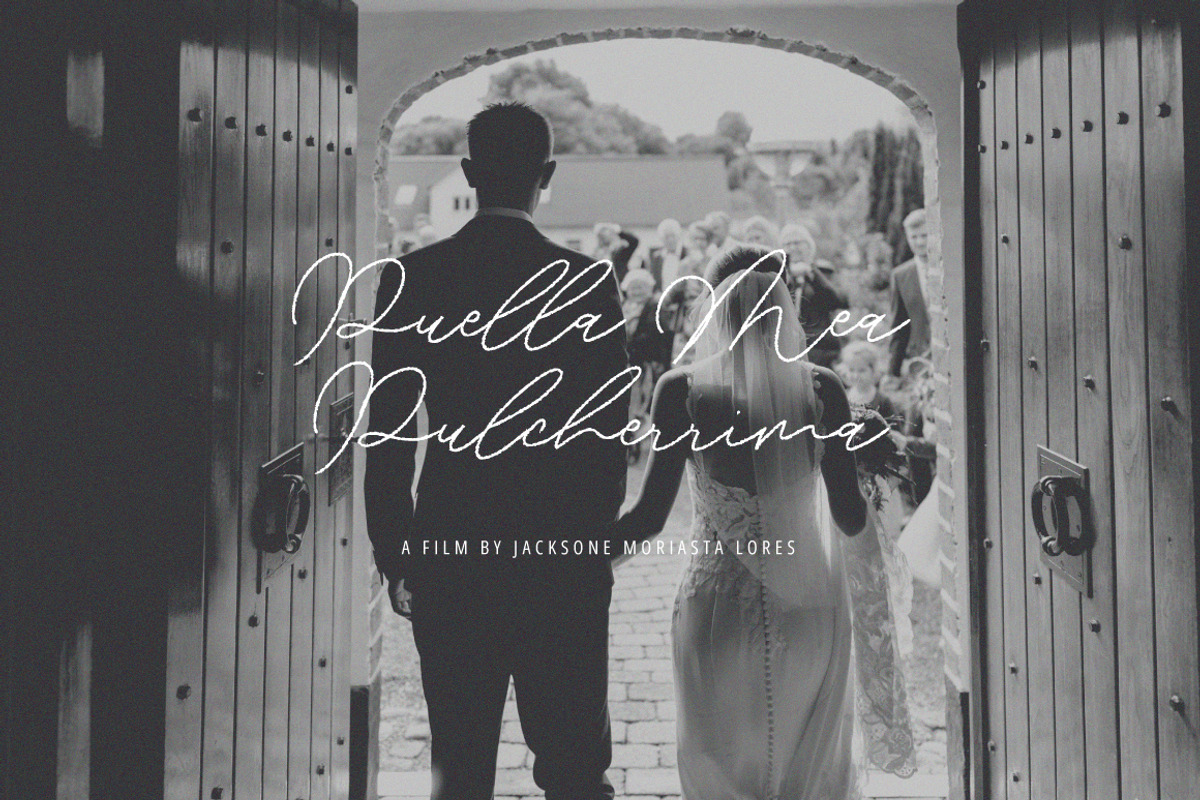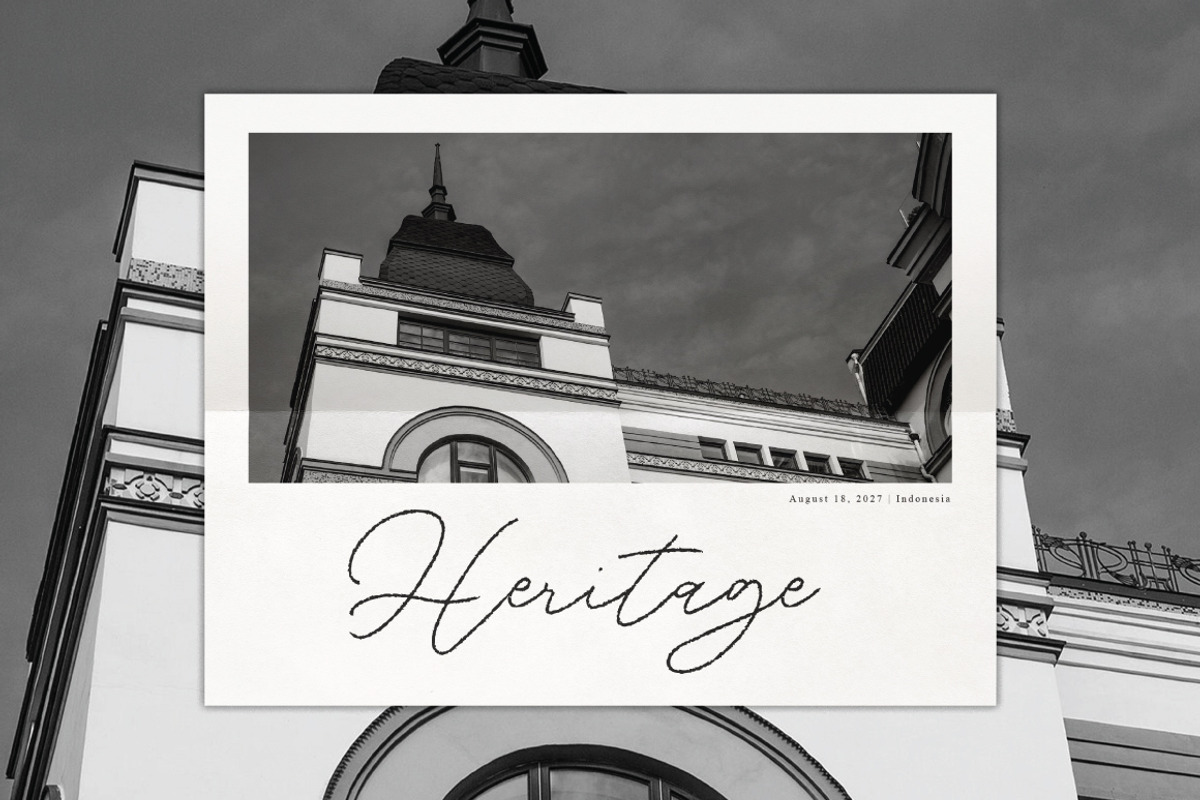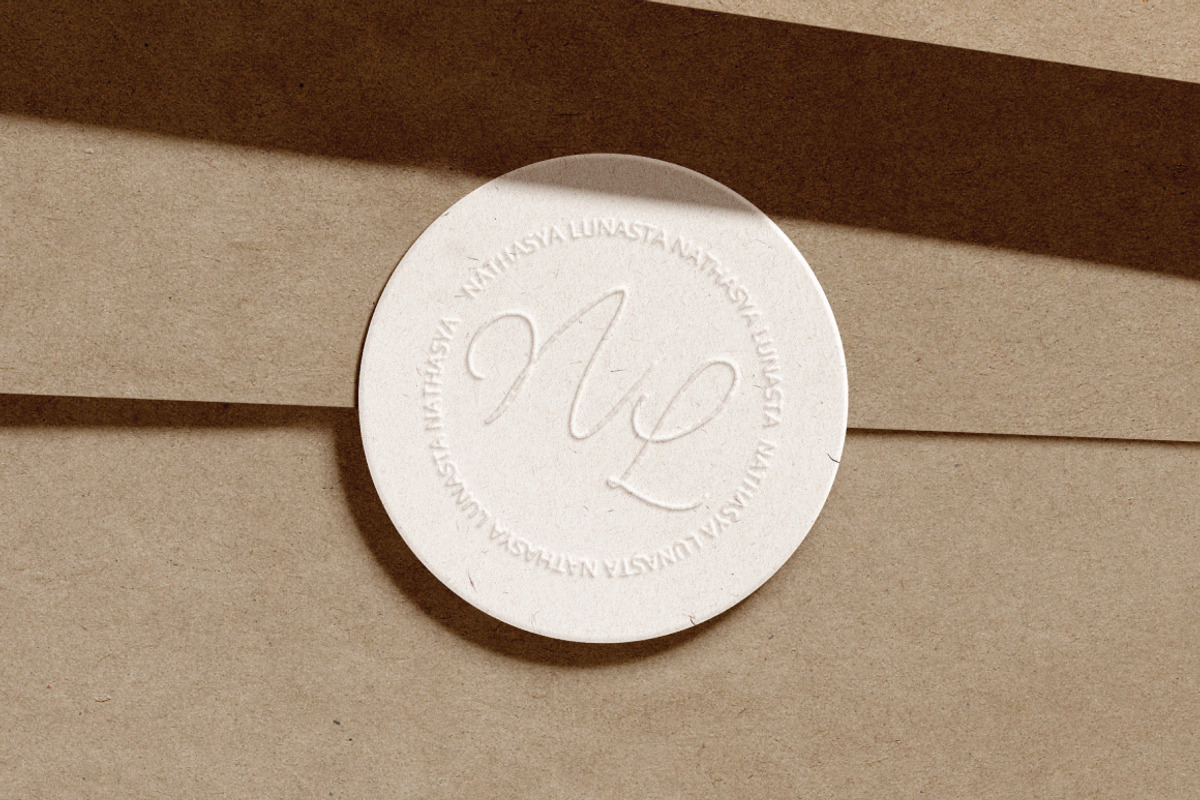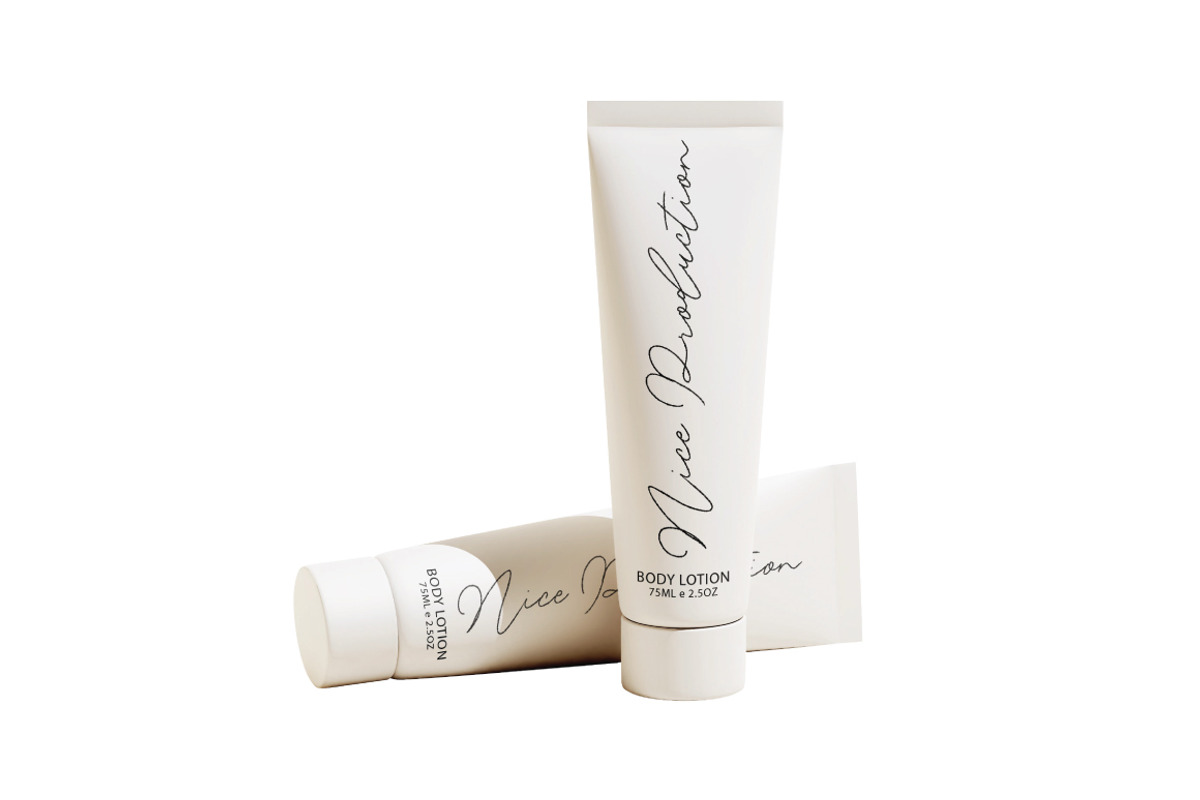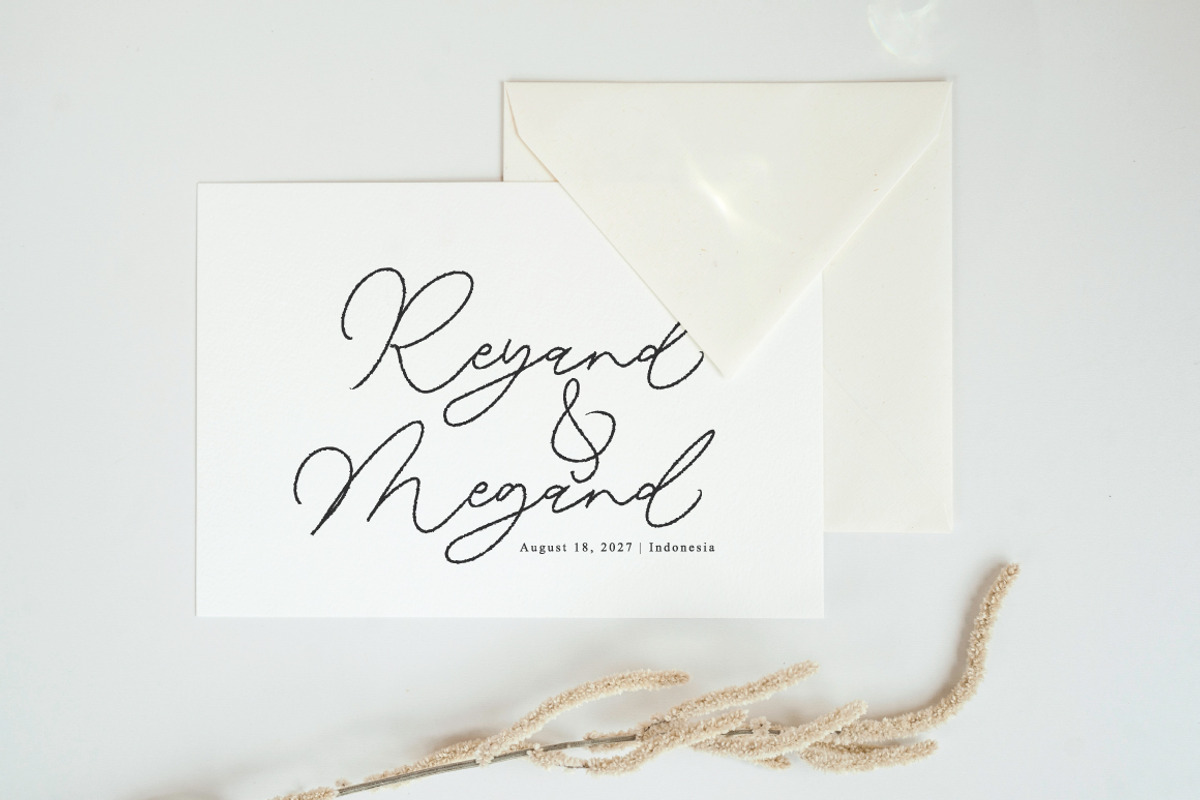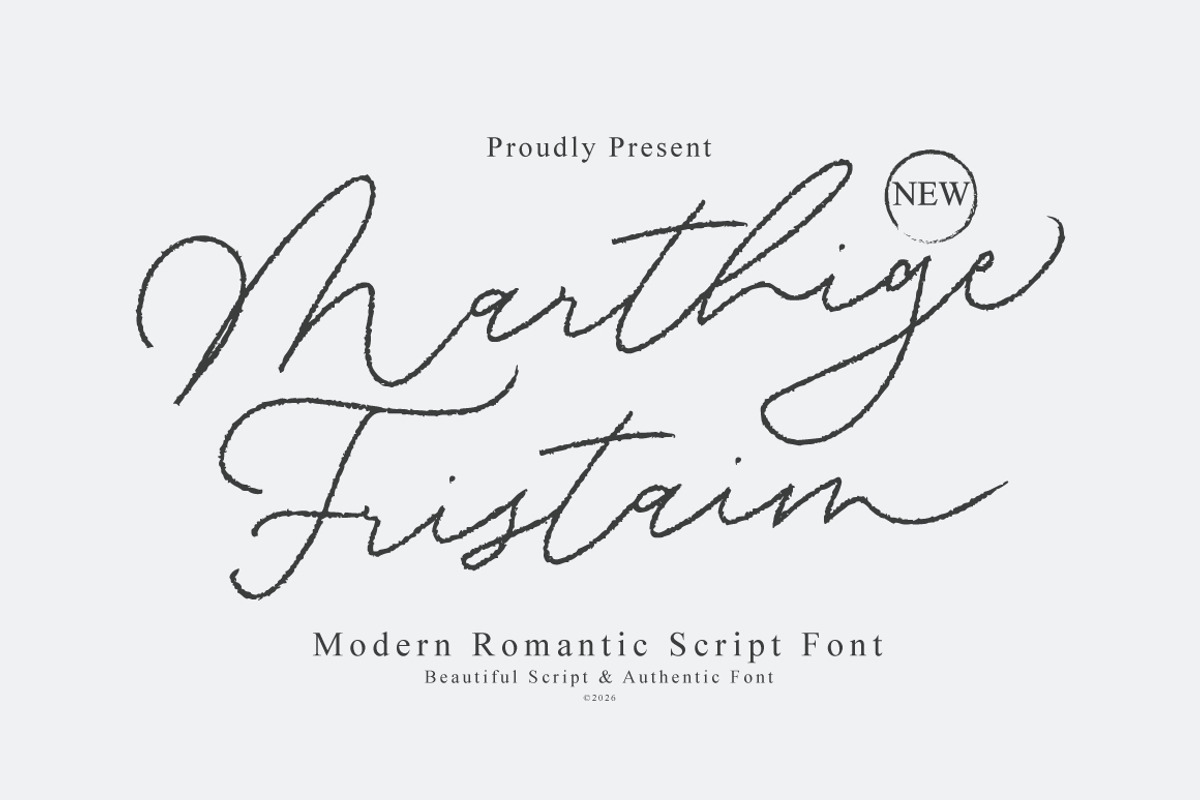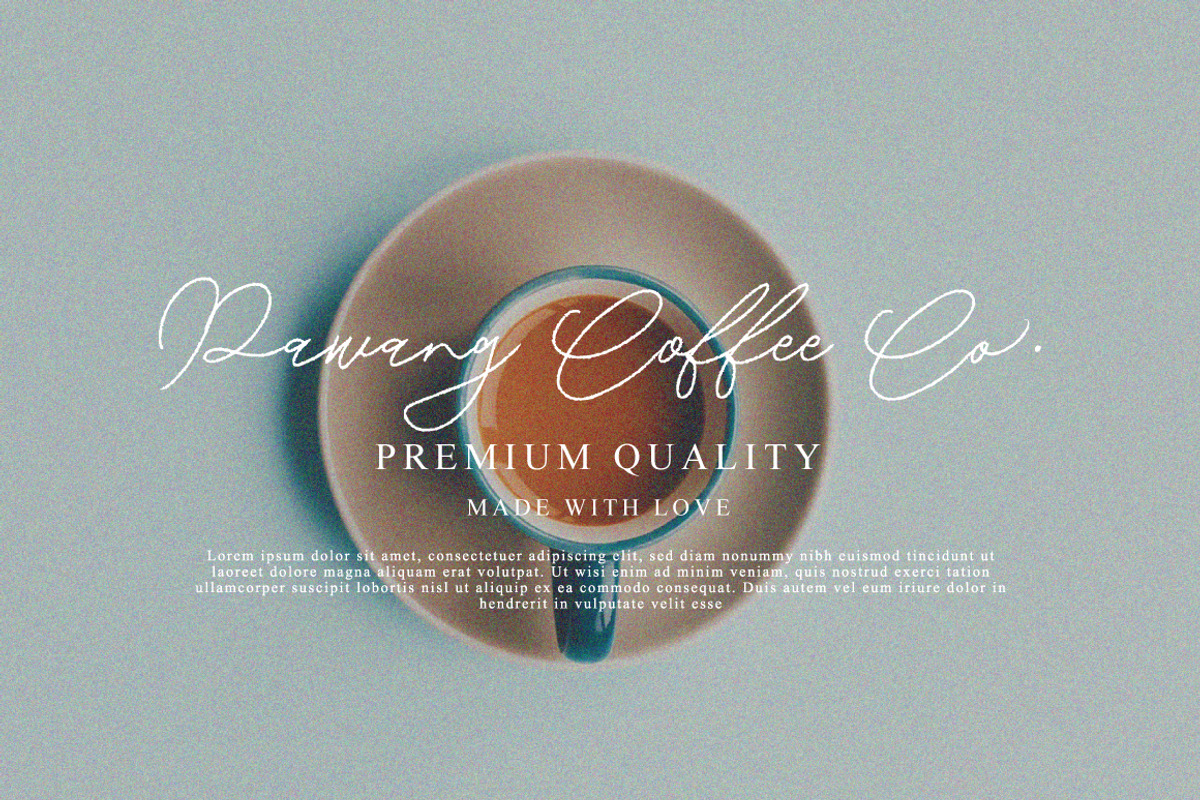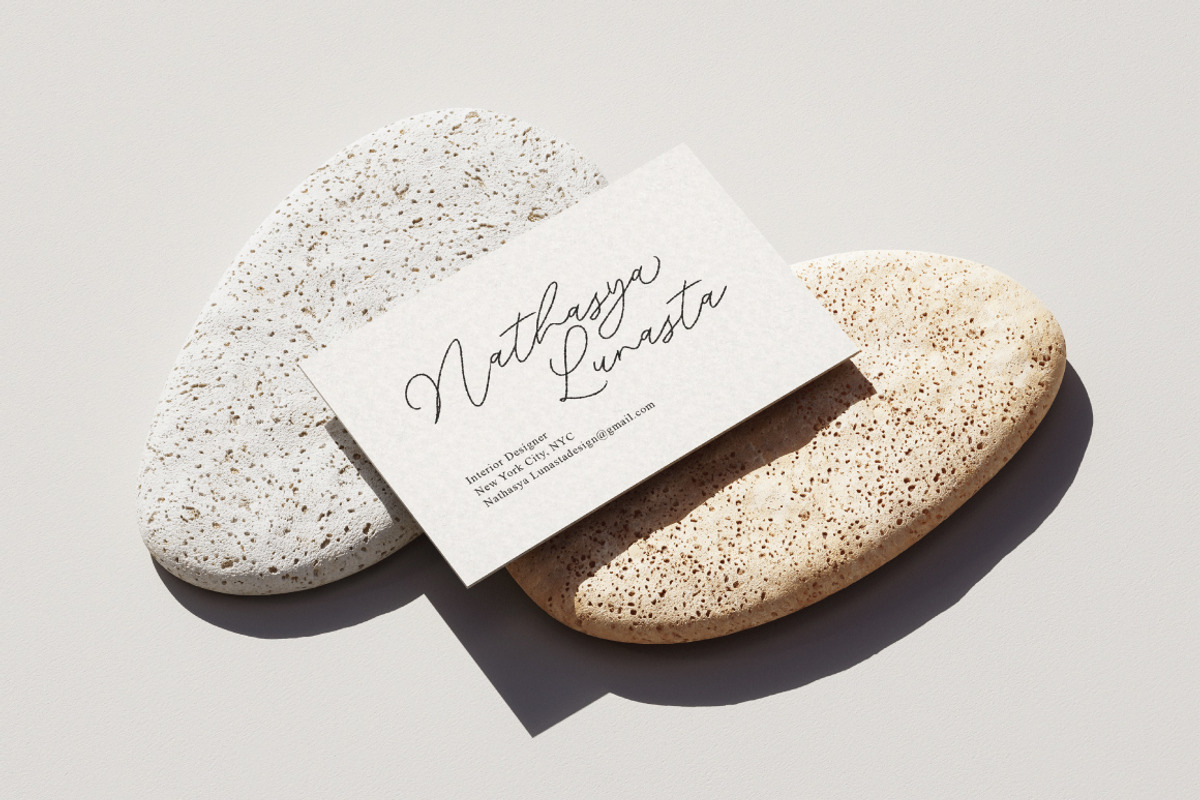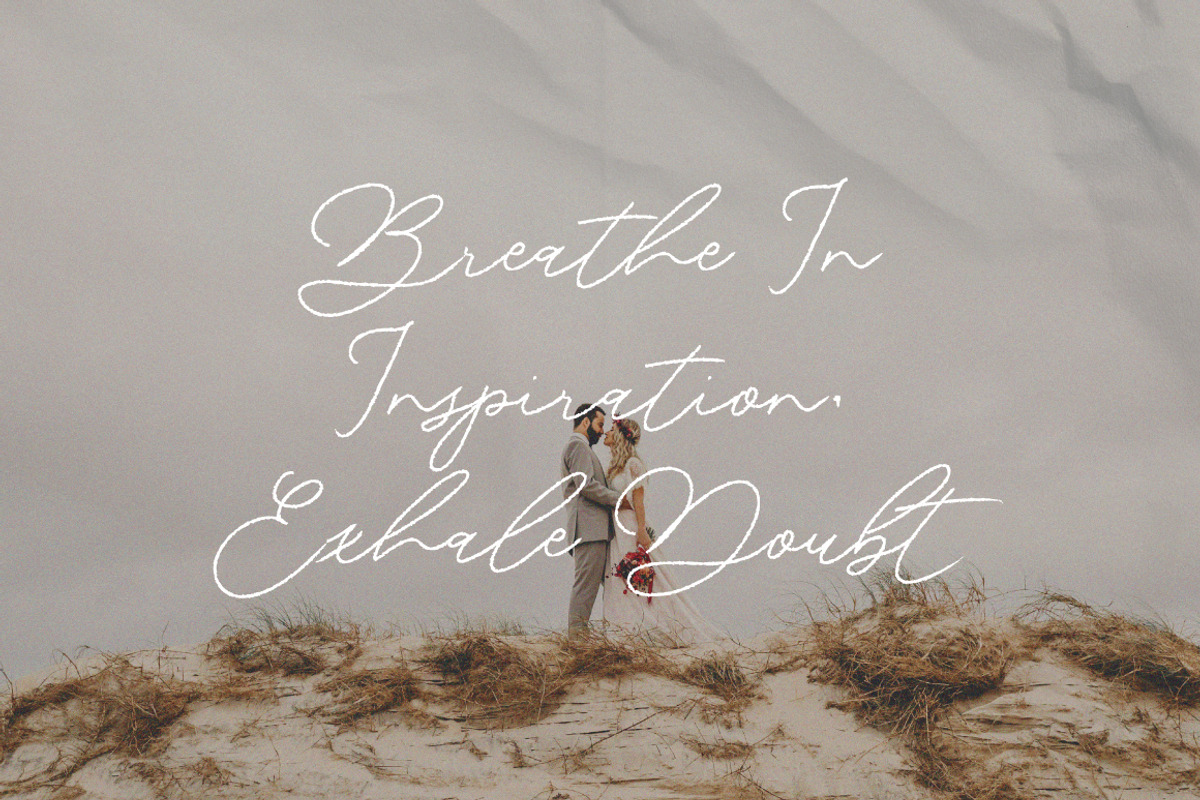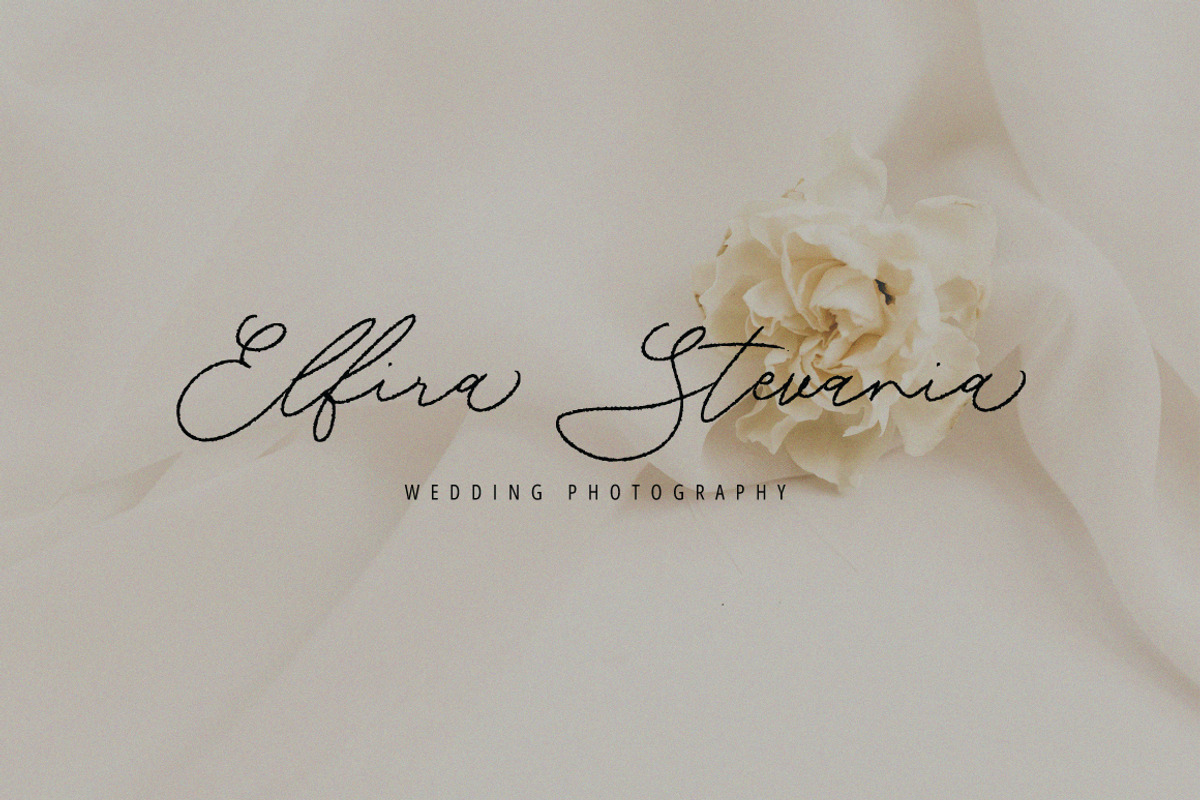
Marthige Fristain – Romantic Script
Marthige Fristain – Modern Romantic Script Font
Infuse romantic charm into your designs with Marthige Fristain, an exquisite modern script font featuring delicate pencil-textured strokes and sweeping loops. Crafted to capture the raw, intimate feel of handwritten calligraphy, this font brings a dreamy, high-end aesthetic to modern typography.
Marthige Fristain is tailored for romantic brand identities, wedding invitations, luxury packaging, quote prints, and editorial layouts. Its authentic textured detail ensures a graceful, handmade finish on every surface.
Delicate pencil-textured script style
Graceful cursive loops & organic connections
Complete set of uppercase & lowercase characters
Numerals, punctuation, & multi-language support
Suitable for:
Logos & Personal Branding
Beauty Branding
Wedding Invitations
Social Media Content
Photography Watermarks
Quotes & Editorial Design
Product Labels & Luxury Branding
Marthige Fristaim Script was created for designers, business owners, and creators who want to create a classy and memorable visual identity.